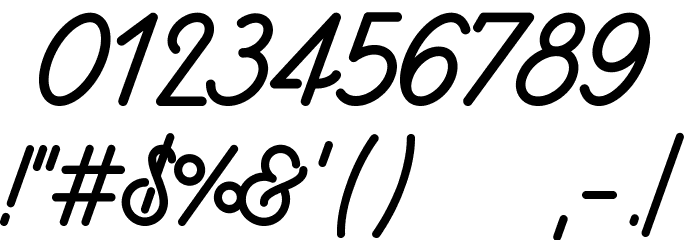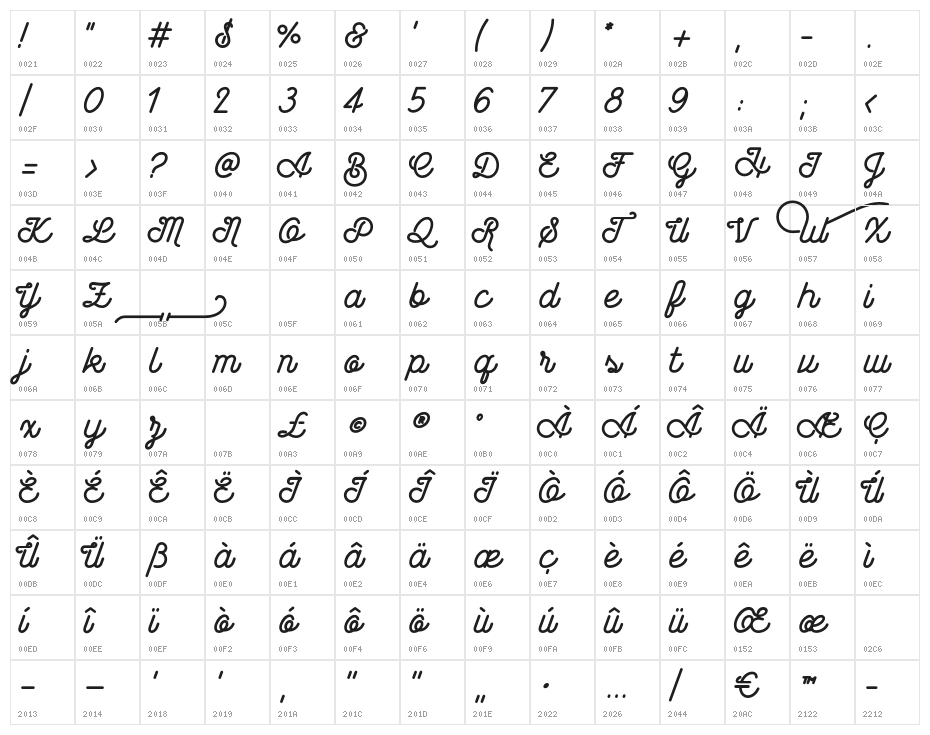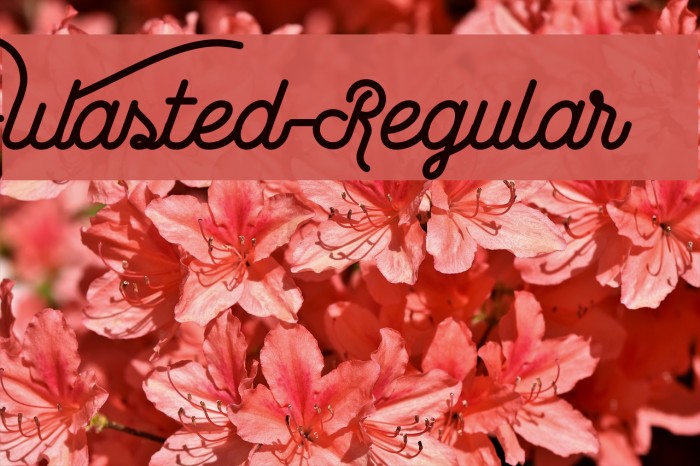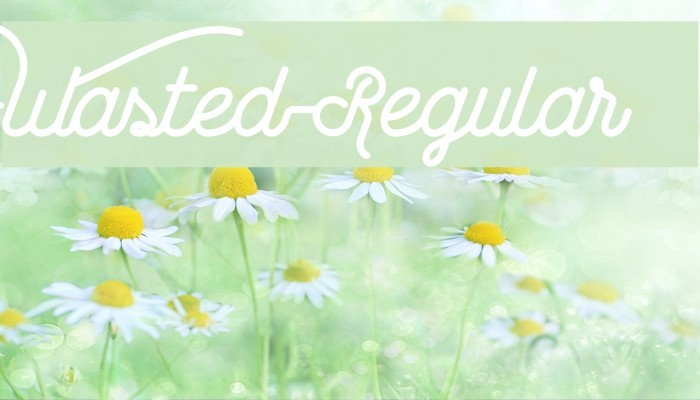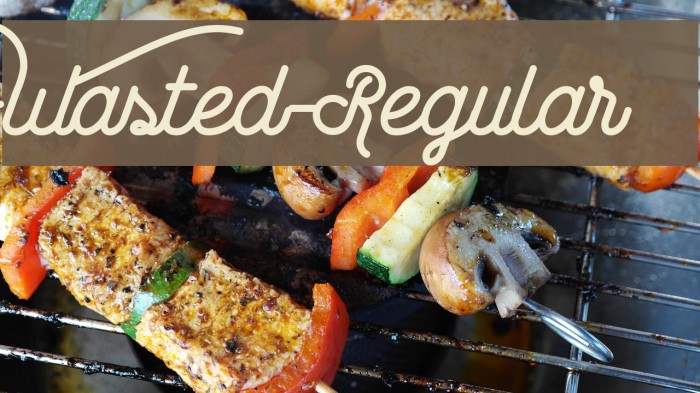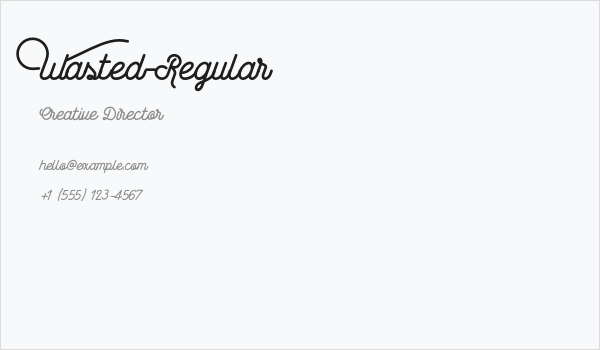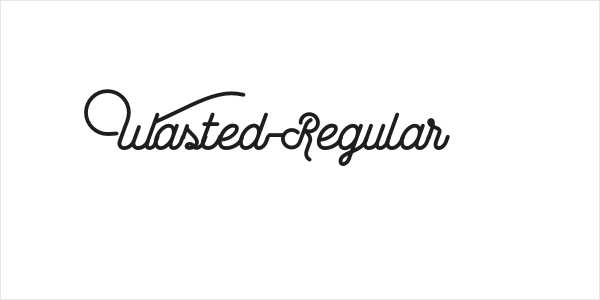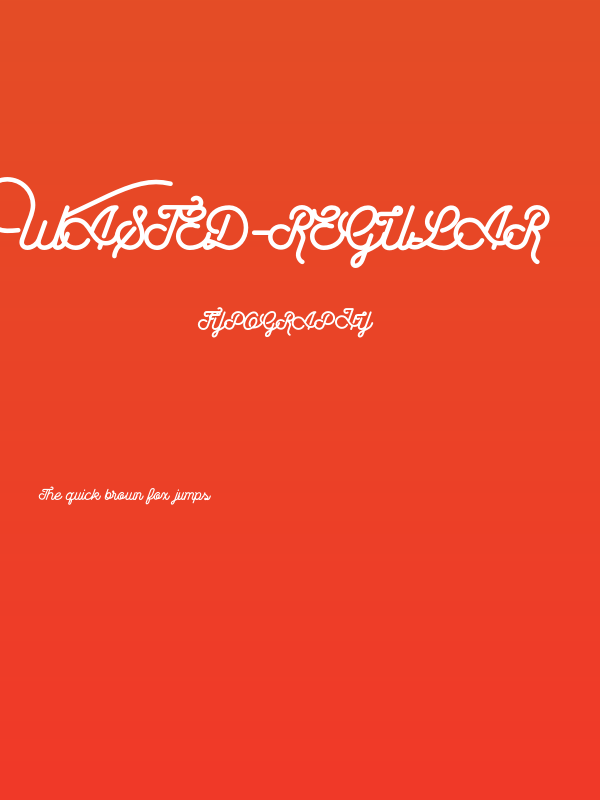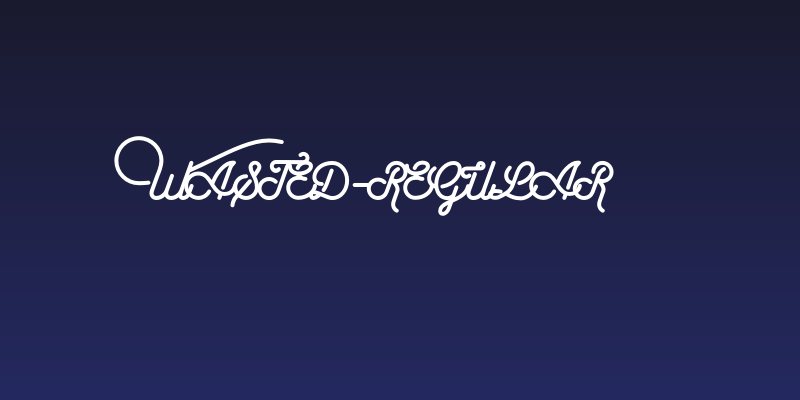
Wasted-Regular Font
Wasted-Regular Description
This font features a playful and energetic script style, characterized by its flowing, connected letters and a lively, handwritten appearance. The uppercase letters are bold and expressive, with unique loops and curves that add a sense of movement. The lowercase letters maintain a consistent rhythm, enhancing readability while retaining a casual charm. Numbers and special characters are designed to match the overall style, ensuring a cohesive look across all text elements. The font's thick strokes and smooth curves make it suitable for creating eye-catching designs that require a touch of personality.